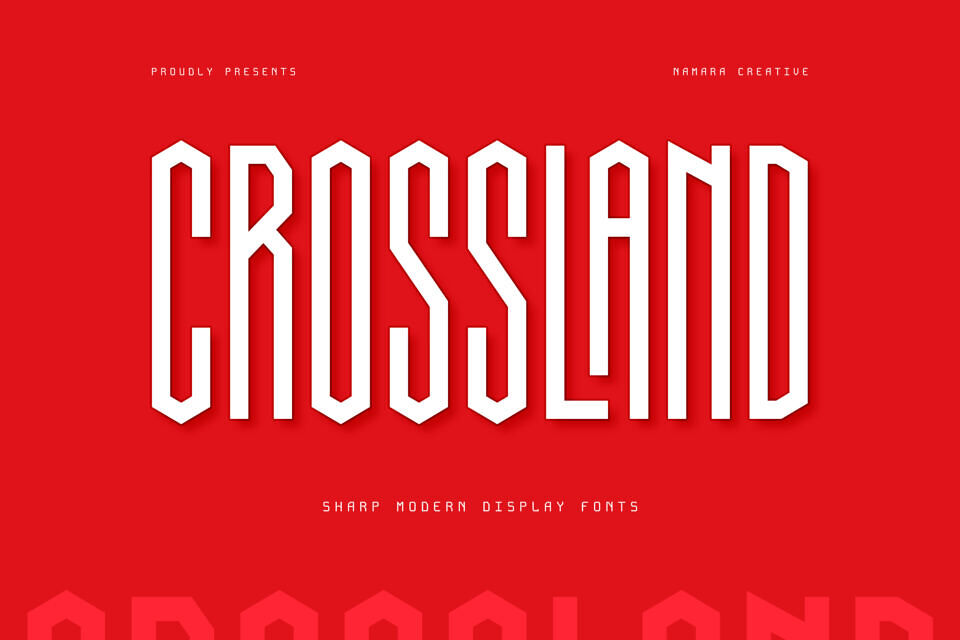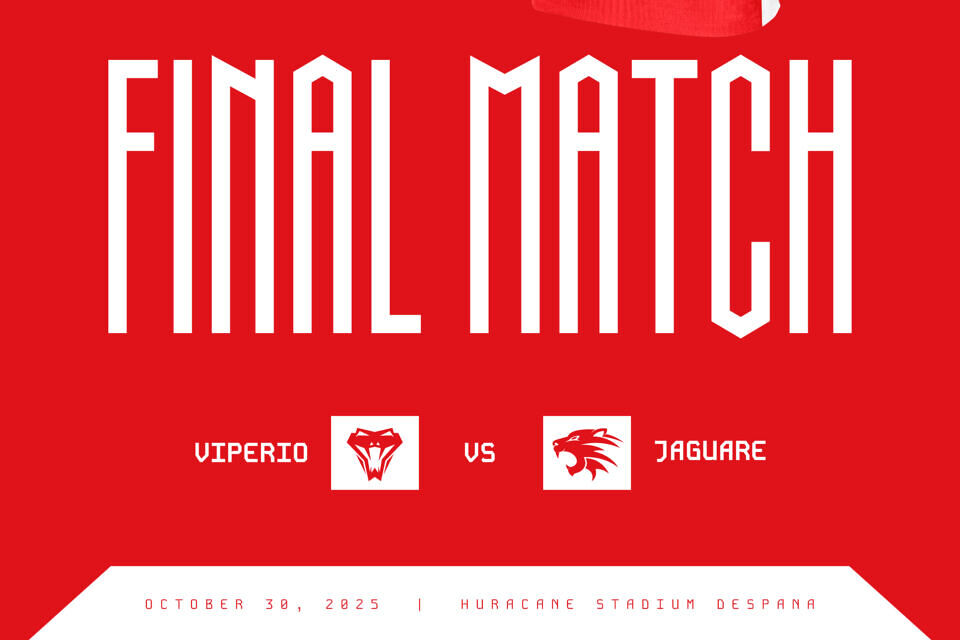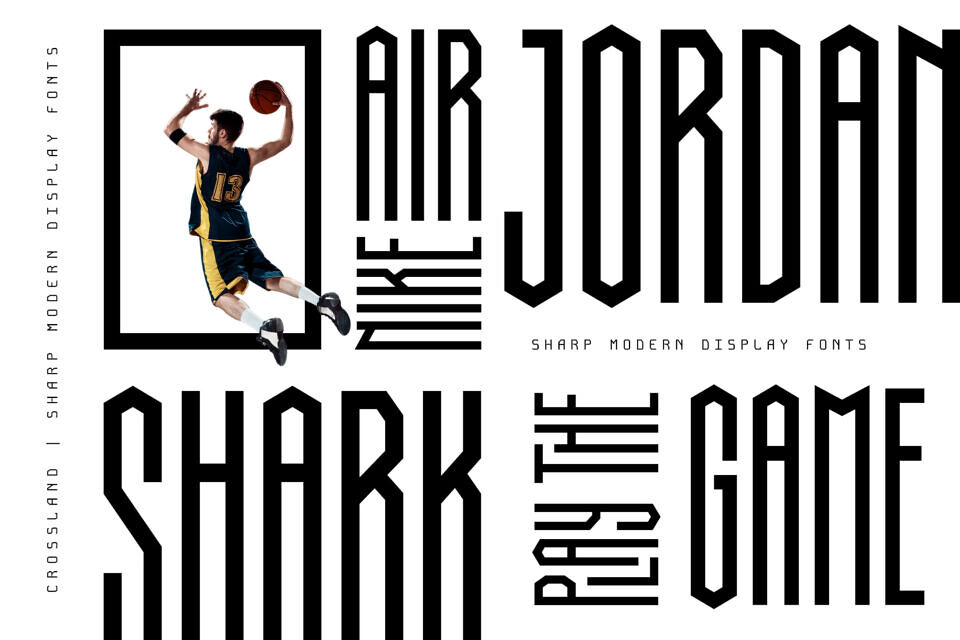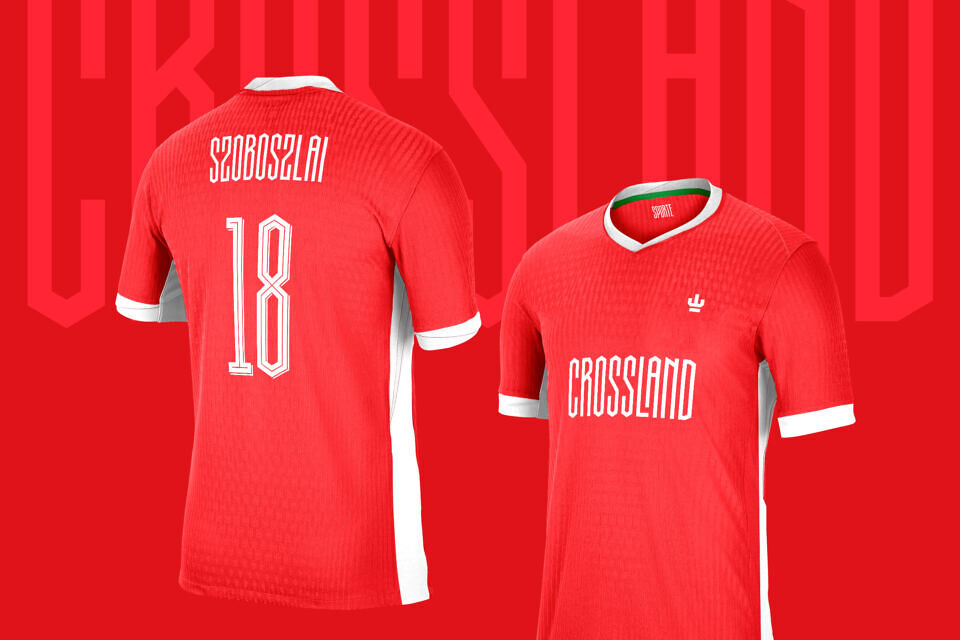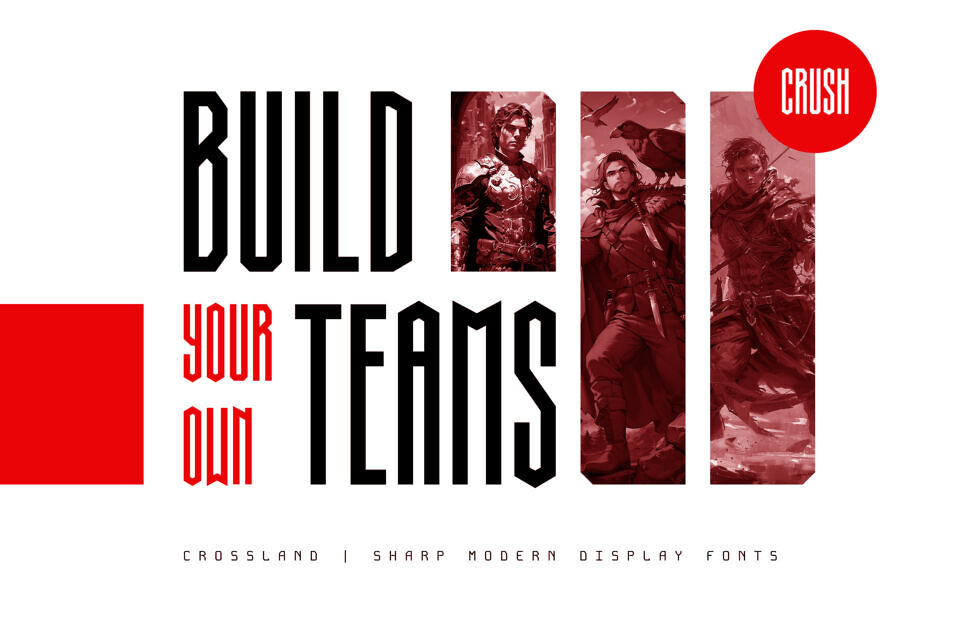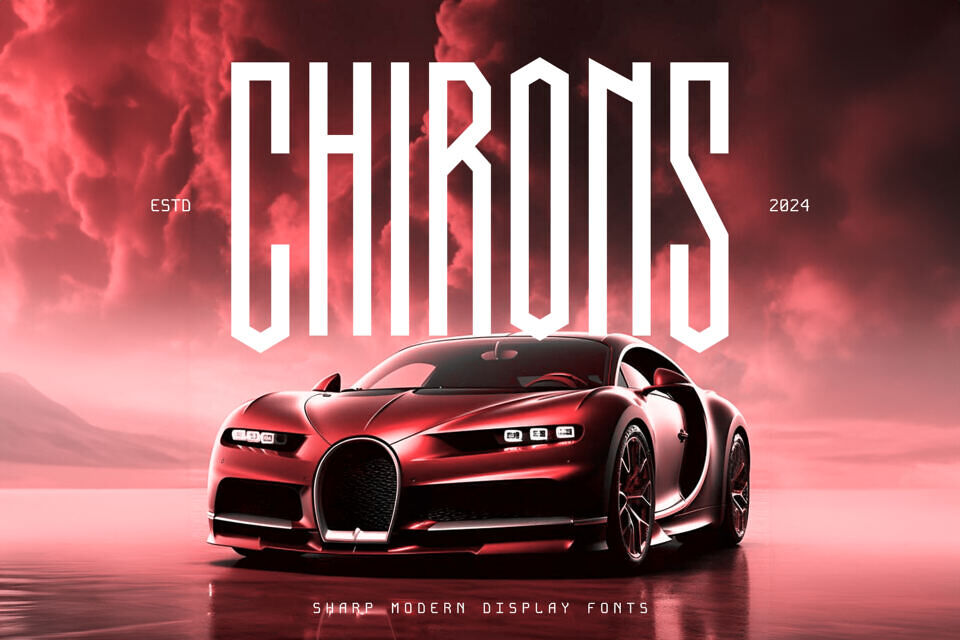
Crossland Font
Crossland is a dynamic typeface designed for attention-grabbing headlines, sports branding, and any context requiring an energetic, commanding presence. Vertically stretched, giving the font a sleek, modern look with a sense of speed and dynamism.